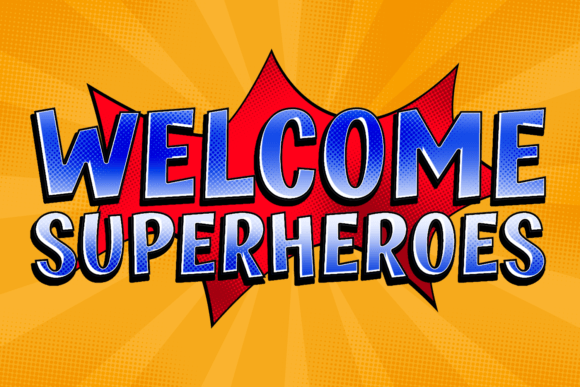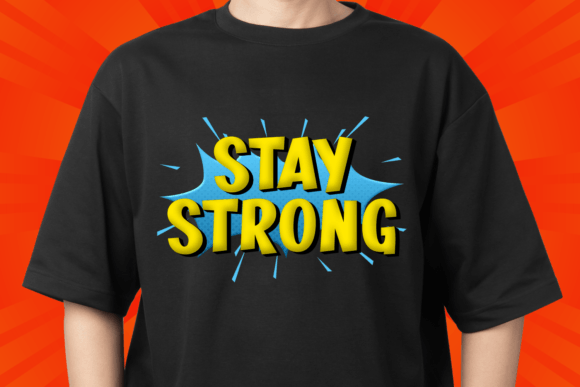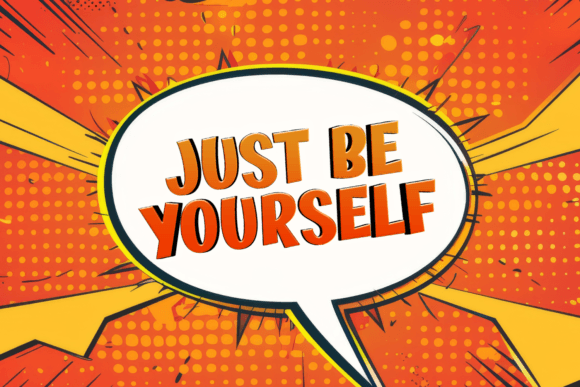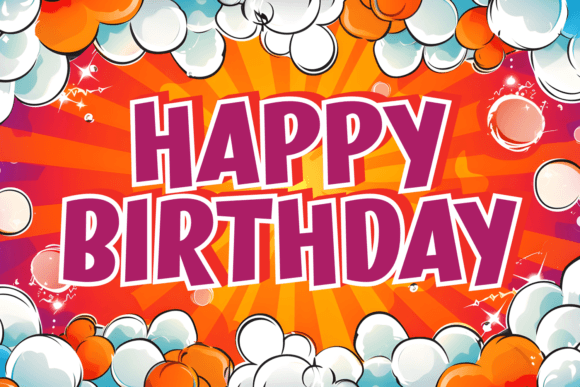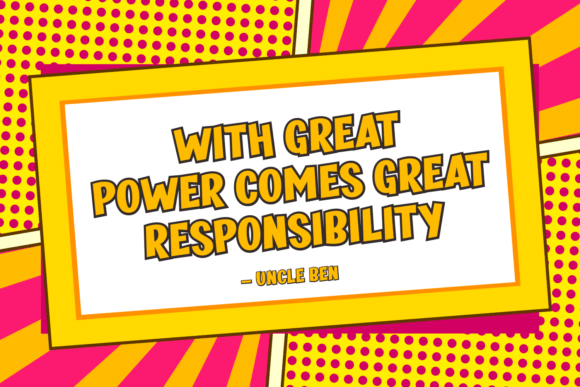
Introduction to Quick Girls Font
Remember that moment when you’re brainstorming ideas for a new project, and suddenly, the perfect font pops into your head? For designers, that ‘aha’ moment is often the result of having access to the right design resources. One such resource is the Quick Girls Font, a display comic font that embodies the carefree spirit of any creative project.
Designed to add a touch of fun without overwhelming the senses, Quick Girls Font is an ideal choice for logos, headlines, and digital artwork. Its easygoing nature makes it a versatile design resource that can be used in a variety of contexts, from children’s books to social media graphics. Whether you’re working on a high-quality design project or just need a free download for a quick illustration, Quick Girls Font is a valuable addition to your design toolkit.
Key Features of Quick Girls Font
- High-quality design suitable for creative projects, such as digital art and graphic designs.
- Unique characteristics include a playful and modern aesthetic, making it an ideal choice for creative projects that require a touch of whimsy.
Honest Review: Quick Girls Font
I recently had the chance to try out the Quick Girls Font, and I’m excited to share my honest thoughts with you. As a designer, I’m always on the lookout for high-quality fonts that can elevate my creative projects.
- High-quality design: The Quick Girls Font has a unique and playful style that’s perfect for creative projects.
- No bold or italic styles: If you’re looking for a font with bold or italic styles, you might be disappointed.
Overall, I’m impressed with the Quick Girls Font. While it has some limitations, its unique design and free download make it a great design resource for creative projects. I’d definitely recommend giving it a try!
Tips for Getting the Most Out of Quick Girls Font
The Quick Girls Font is suitable for various design projects, including blog posts, social media graphics, and marketing materials. Its high-quality design makes it an excellent choice for creative projects that require a unique and eye-catching font.